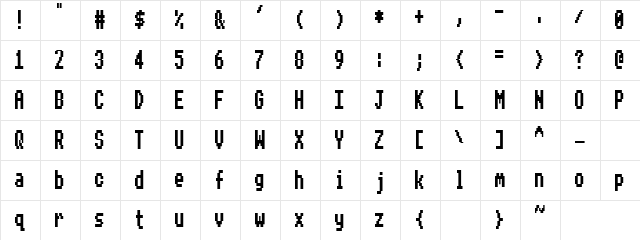
Eldaro Ashwin Regular
Design Context for Eldaro Ashwin Typeface
Eldaro Ashwin is a composed and adaptable typeface that performs quietly and consistently across a wide range of design contexts.